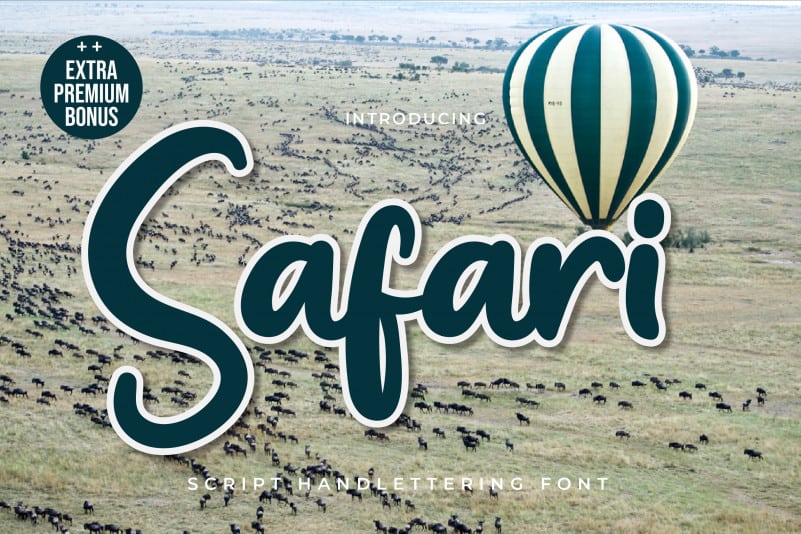
Safari Script Font
Safari Script Font is a unique and interesting handwritten font. Incredibly versatile, this font will fit a wide pool of designs.
Fall in love with its incredibly stylish look and use it to create spectacular designs!